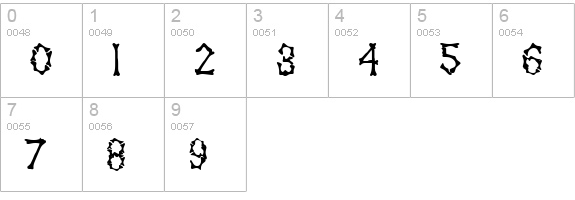
Renegat Font Details
Renegat font is a bold and modern typeface that exudes rebellious energy and edgy style. With its sharp lines and distinctive letterforms, Renegat demands attention and makes a powerful statement in any design project. Whether you're creating posters, logos, or social media graphics, this font will add a touch of daring sophistication to your work. Best of all, Renegat font is available for free download at FontsMarket.com. Embrace your rebellious spirit and elevate your designs with this stunning typeface today!